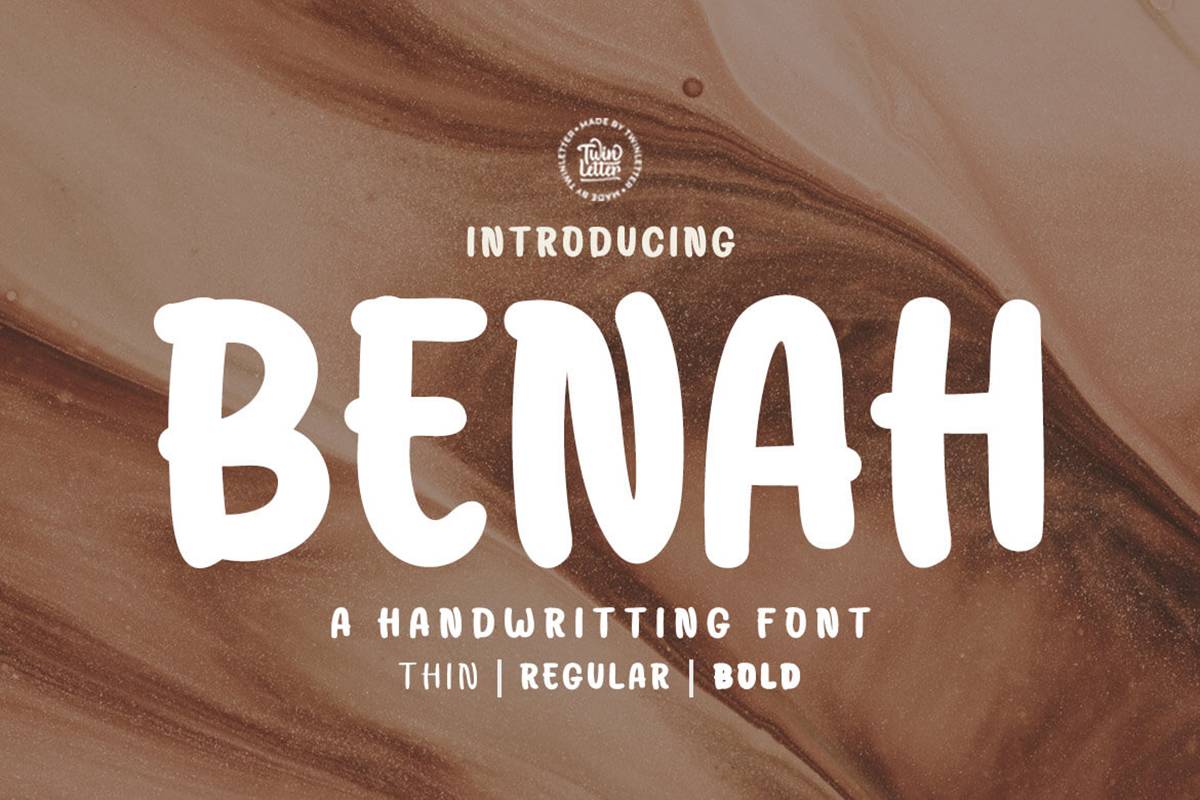
Benah is a bold, playful sans serif font with rounded, chunky letterforms that convey warmth and friendliness. Its thick strokes and smooth curves make it ideal for fun, casual designs, perfect for children's books, informal branding, or eye-catching headlines. Benah’s approachable style brings an inviting, lively spirit to any project looking for a cheerful and bold personality.
Benah Font
About Benah Font